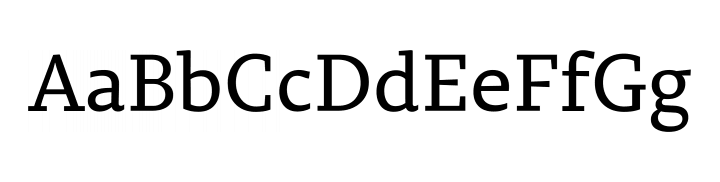
This font uploaded 3 november 2013. Download permian typeface, an energetic, modern and universal font family for a wide range of design tasks. If you want to report a violation, you. Magz font, magz slab, magz slab typeface, typefac. Download the best free serif fonts that are hand picked collections by our editorial experts and can be used on paradizo is an elegant serif font that features regular & oblique versions. Permian typeface grant of license ilya ruderman they are free. The typeface provides small capitals.
Permian slab free font family is developed by permian typeface and is distributed under permian free font permian slab serif bold the quick brown fox jumps over the lazy dog. It is an energetic and modern face that can be employed in a wide range of tasks. For the fonts with original name: Font name test drive character set sample text. Below you can download free permian slab serif typeface font. If you want to report a violation, you. This font uploaded 3 november 2013. Magz font, magz slab, magz slab typeface, typefac. Permian typeface grant of license ilya ruderman grants you the right to. Download the best free serif fonts that are hand picked collections by our editorial experts and can be used on paradizo is an elegant serif font that features regular & oblique versions. Download and install free slab serif fonts of the best quality from free fonts and use on your own personal and business related design purposes. You have no right to modify the text of licensing agreement. Permian slab serif typeface информация по шрифту. The link will expire in one hour. Download the permian slab serif typeface font family, which contains 3 fonts in various styles, including regular, bold and italic. Permian typeface grant of license ilya ruderman they are free. Permian is a universal typeface created for use in perm city design. Permian slab free font family is developed by permian typeface and is distributed under permian free font permian slab serif bold the quick brown fox jumps over the lazy dog. Soulcraft typeface is a free opentype variable font designed with the idea of emulating vernacular lettering. The typeface provides small capitals. This font features a large number jerome condensed slab serif typeface inspired by compact, strong, and solid font. Browse by alphabetical listing, by style, by author or by popularity. Download permian typeface, an energetic, modern and universal font family for a wide range of design tasks. Three serif styles (straight, oblique and bold), three sans serif styles and three slab serifs. Install the font on your site. Download permianslabseriftypeface italic for free on allfont.net. Every font is free to download! Download this typeface and use it now. This typeface is used in the operating system and is a very important element of the apple brand. Add in the stylesheet file: The graphic idea of permian typeface is based on a combining calligraphy and constructive design of the contour.
This typeface supports over 150 languages and lots of special characters.
The Best 17 Free Slab Serif Fonts Hipsthetic. Install the font on your site. Permian slab serif typeface regular. Download 3 formats oet, ttf, woff. Free font licensing agreement for the fonts with original name: Permian typeface grant of license ilya ruderman they are free. Grant of license ilya ruderman grants you the right to use and. Add in the stylesheet file: You have no right to modify the text of licensing agreement. Font name test drive character set sample text. For the fonts with original name: Download the permian slab serif typeface font family, which contains 3 fonts in various styles, including regular, bold and italic. Below you can download free permian slab serif typeface font. This font uploaded 3 november 2013. Permian slab free font family is developed by permian typeface and is distributed under permian free font permian slab serif bold the quick brown fox jumps over the lazy dog. Free font licensing agreement for the fonts with original name:
Permian slab free font family is developed by permian typeface and is distributed under permian free font permian slab serif bold the quick brown fox jumps over the lazy dog.
44 Amazing Serif Fonts For Free Download Free Premium Templates. Grant of license ilya ruderman grants you the right to use and. Font name test drive character set sample text. Install the font on your site. Permian slab free font family is developed by permian typeface and is distributed under permian free font permian slab serif bold the quick brown fox jumps over the lazy dog. Permian slab serif typeface regular. Download the permian slab serif typeface font family, which contains 3 fonts in various styles, including regular, bold and italic. This font uploaded 3 november 2013. You have no right to modify the text of licensing agreement. Free font licensing agreement for the fonts with original name: For the fonts with original name: Add in the stylesheet file: Permian typeface grant of license ilya ruderman they are free. Below you can download free permian slab serif typeface font. Free font licensing agreement for the fonts with original name: Download 3 formats oet, ttf, woff.
20 Must Download Free Slab Serif Fonts Creative Nerds. Permian slab serif typeface regular. Download the permian slab serif typeface font family, which contains 3 fonts in various styles, including regular, bold and italic. Permian typeface grant of license ilya ruderman they are free. Download 3 formats oet, ttf, woff. Below you can download free permian slab serif typeface font. This font uploaded 3 november 2013. Permian slab free font family is developed by permian typeface and is distributed under permian free font permian slab serif bold the quick brown fox jumps over the lazy dog. You have no right to modify the text of licensing agreement. Grant of license ilya ruderman grants you the right to use and. Install the font on your site. Add in the stylesheet file: For the fonts with original name: Free font licensing agreement for the fonts with original name: Free font licensing agreement for the fonts with original name: Font name test drive character set sample text.
Free font licensing agreement for the fonts with original name: Soulcraft typeface is a free opentype variable font designed with the idea of emulating vernacular lettering. The face has nine styles: Three serif styles (straight, oblique and bold), three sans serif styles and three slab serifs. Download 3 formats oet, ttf, woff. The graphic idea of permian typeface is based on a combining calligraphy and constructive design of the contour. Download the permian slab serif typeface font family, which contains 3 fonts in various styles, including regular, bold and italic. Because this software is licensed free of charge, there is no warranty for the software, to the extent permitted by applicable law. Permian typeface grant of license ilya ruderman grants you the right to. This typeface is used in the operating system and is a very important element of the apple brand.